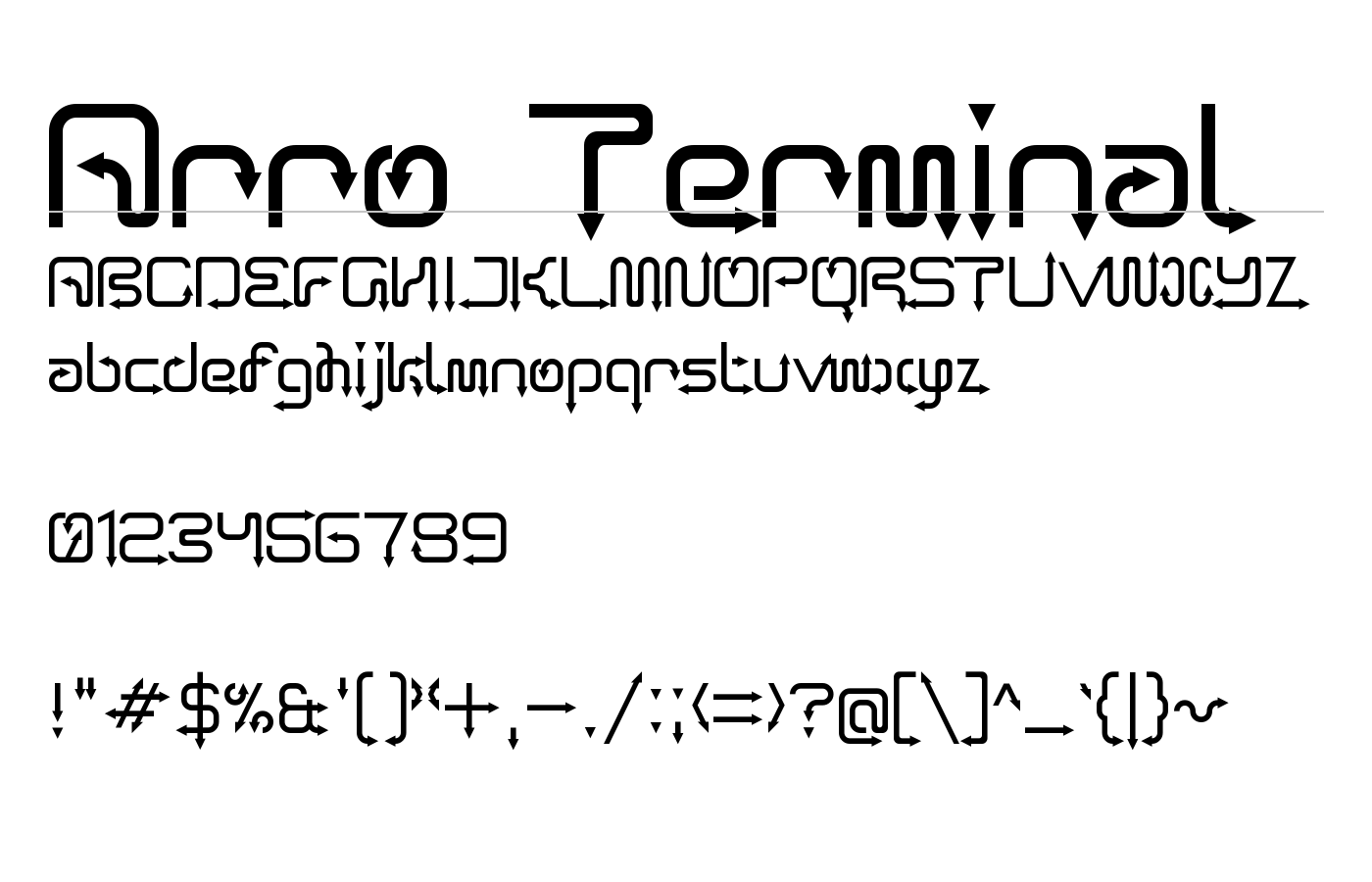
Arro Terminal is a unique, futuristic sans serif font with a monospaced, technical feel enhanced by arrow-shaped terminals on nearly every stroke, creating a dynamic sense of direction and movement. Its clean, geometric letterforms combined with consistent stroke weight make it ideal for digital interfaces, tech branding, and creative projects seeking an innovative, modern look. This font stands out especially in headlines or logos where its distinctive style can capture attention and convey forward-thinking energy.
Arro Terminal Font
About Arro Terminal Font